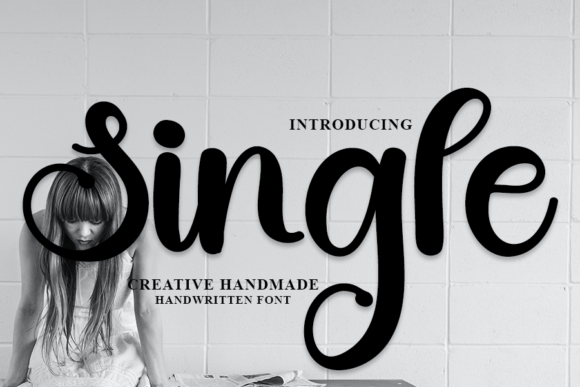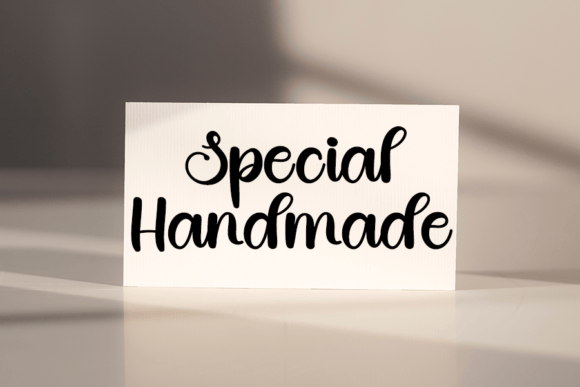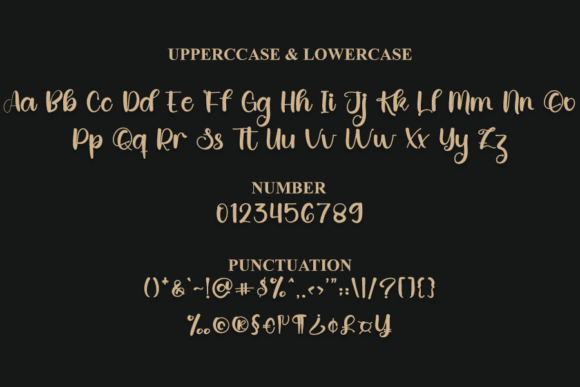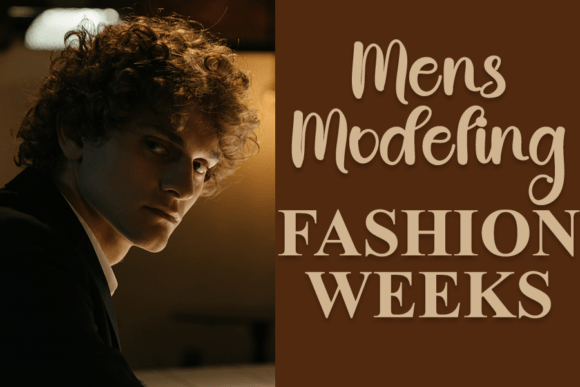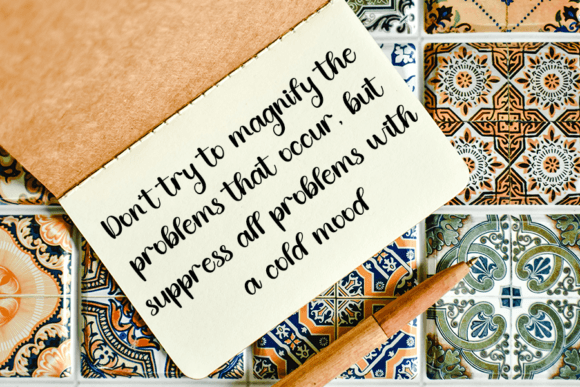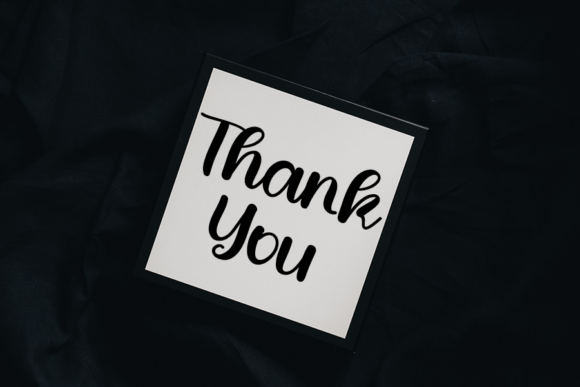
Single Font
About Single Font
**Single: A Beautiful and Refined Script Font**
Introducing Single, a beautiful and refined script font that effortlessly combines class, elegance, and modernity. This versatile font is the perfect choice for a wide range of design applications, including logos, branding, invitations, stationery, wedding designs, social media posts, and beyond.
The charm of Single lies in its exquisite and refined script characters. Each letter is meticulously crafted to exude sophistication and authenticity. Whether you’re working on branding materials that demand elegance or crafting wedding designs that require a touch of class, Single adapts seamlessly to your creative vision.
The versatility of Single knows no bounds. It can be used to create memorable logos that leave a lasting impression with their refined beauty or add a contemporary and elegant touch to wedding invitations and stationery. Its sleek appearance ensures that your designs remain fresh and stylish, making it suitable for a wide range of applications.
In summary, Single is more than just a font; it’s a source of beauty and refinement that enhances your design projects. Its beautiful and refined script letters make it a versatile choice for infusing class and modernity into your work. With Single, your creative projects will radiate with an elegant and sophisticated touch. Choose Single, and let your designs captivate with its beautiful and refined charm.